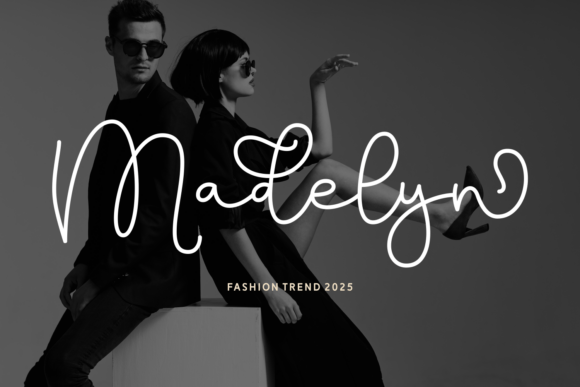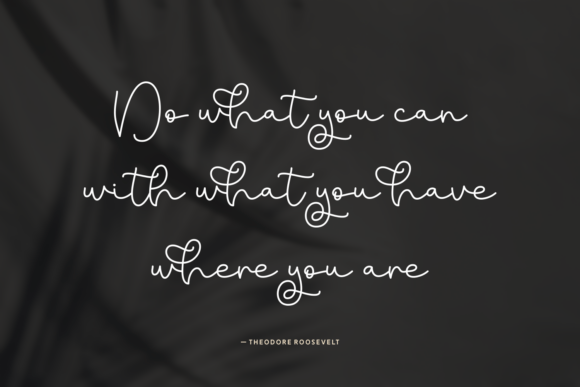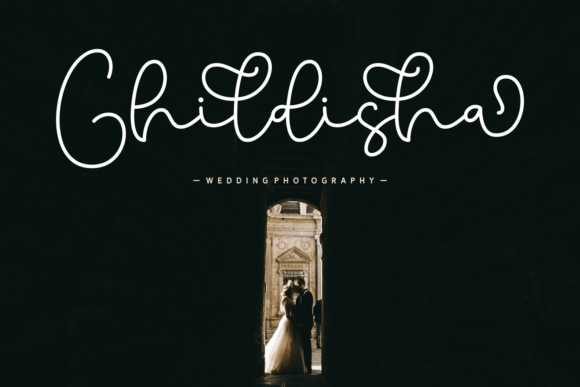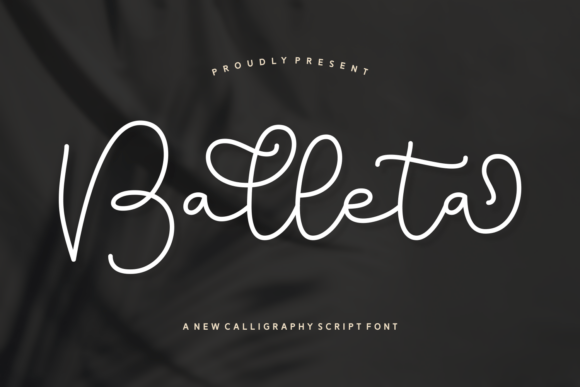
Balleta Font: Elevate Your Designs with Elegance and Sophistication
In the world of typography, few fonts capture the essence of elegance and sophistication as beautifully as Balleta. This stunning calligraphy script font is designed to bring a touch of timeless charm to a wide range of creative projects, from wedding designs and branding to invitations and upscale visual content. With its graceful, flowing lines and modern aesthetic, Balleta is quickly becoming a favorite among designers and crafters looking to add a level of refinement to their work.
The Unique Characteristics of Balleta Font
Balleta’s design is marked by its delicate curves and unique swashes, which set it apart from more traditional script fonts. Its elegant strokes and refined lines give it a clean and sophisticated look that is versatile enough to be used in both digital and print applications. Whether you’re creating a logo, designing stationery, or crafting social media graphics, Balleta brings a level of poise and grace that can elevate even the most mundane projects into something truly special.
Perfect for Wedding Designs and Branding
Weddings and high-end branding are areas where Balleta truly shines. Its romantic and elegant feel makes it an ideal choice for wedding invitations, save-the-date cards, and other stationery elements that require a personal touch. For branding, Balleta offers a sophisticated look that can help luxury brands and businesses stand out. Its unique swashes and flowing lines provide a distinctive signature that can be used across various platforms, from business cards to website headers, ensuring a cohesive and upscale visual identity.
Ideal for Invitations and Upscale Projects
Beyond weddings and branding, Balleta’s versatility makes it suitable for a variety of upscale projects. Invitations for special occasions, such as baby showers, anniversaries, and formal galas, can benefit from Balleta’s elegant charm. Additionally, its clean and modern design ensures that it can be effectively used in digital formats, including social media posts, blog headers, and email newsletters, offering a consistent and refined aesthetic across all platforms.
Why Choose Balleta Font?
There are several reasons why Balleta stands out as a go-to font for designers and crafters:
- Elegance and Sophistication: Balleta brings a level of elegance that is hard to match, making it perfect for projects that require a sophisticated look.
- Versatility: Its clean design and unique swashes make it suitable for a wide range of applications, from print to digital.
- Timeless Appeal: Unlike trends that fade, Balleta’s classic aesthetic ensures that your designs remain stylish and relevant for years to come.
- Easy to Use: Balleta is designed to be user-friendly, making it easy to incorporate into your projects, whether you’re working with graphic design software or simply adding text to a digital platform.
How to Use Balleta Font Effectively
To make the most of Balleta, consider the following tips:
- Pair with Complementary Fonts: For maximum impact, pair Balleta with simpler, sans-serif fonts to create a striking contrast.
- Adjust Swashes: Customize the swashes to fit your design’s needs, adding a personal touch to your work.
- Consider Size and Weight: Experiment with different sizes and weights of Balleta to create visual hierarchy and add depth to your designs.
Balleta font is a powerful tool for any designer or crafter looking to add a touch of elegance and sophistication to their work. Its unique blend of classic calligraphy and modern aesthetic makes it versatile and timeless, suitable for a wide range of projects from weddings and branding to digital graphics and print materials. By incorporating Balleta into your design arsenal, you can elevate your creative work, making it stand out with style and poise.
Whether you’re a seasoned professional or just starting out, Balleta offers the perfect combination of beauty, versatility, and ease of use, making it an excellent choice for anyone looking to enhance their designs with a touch of class.